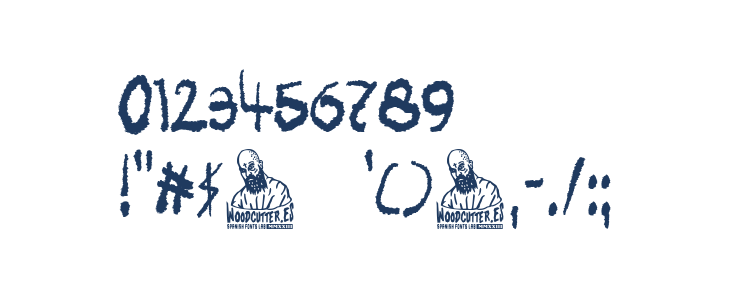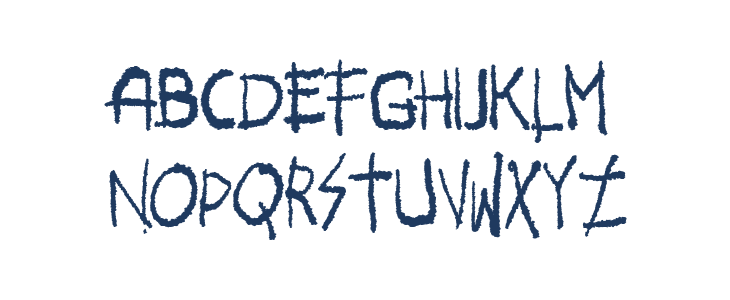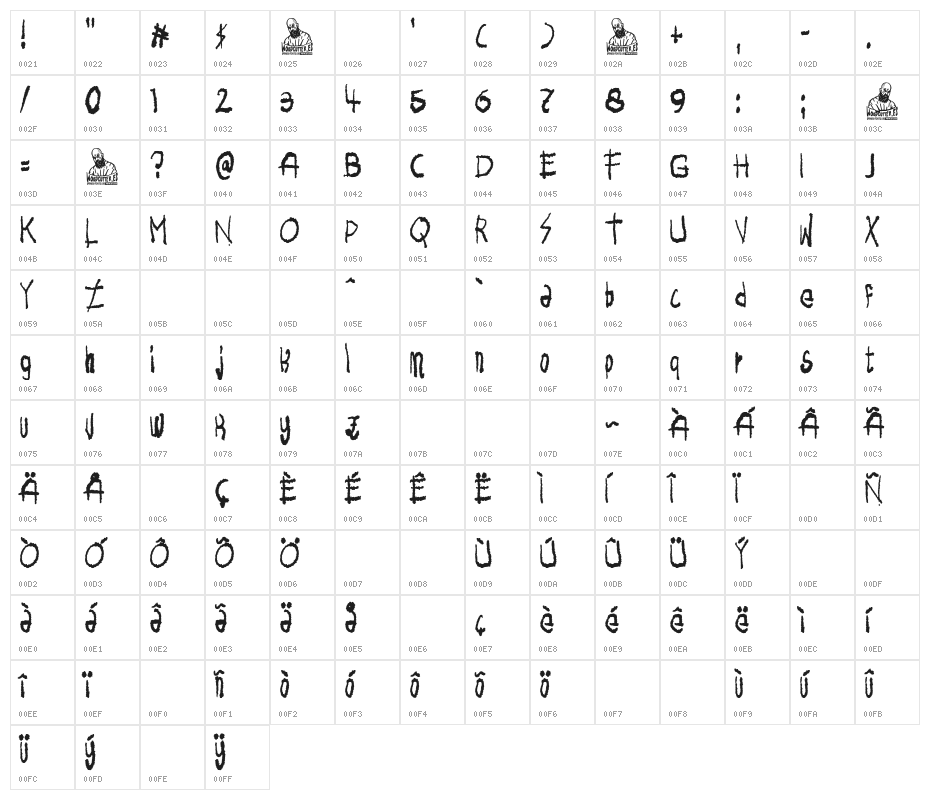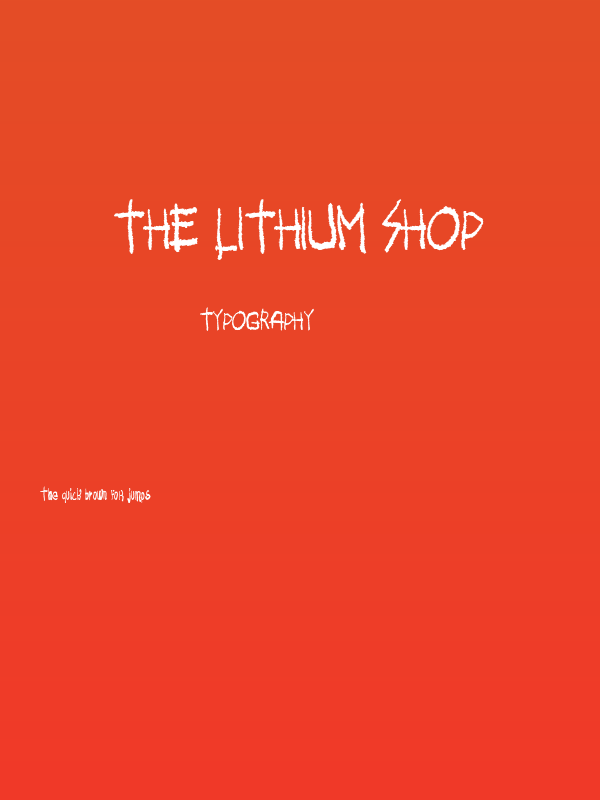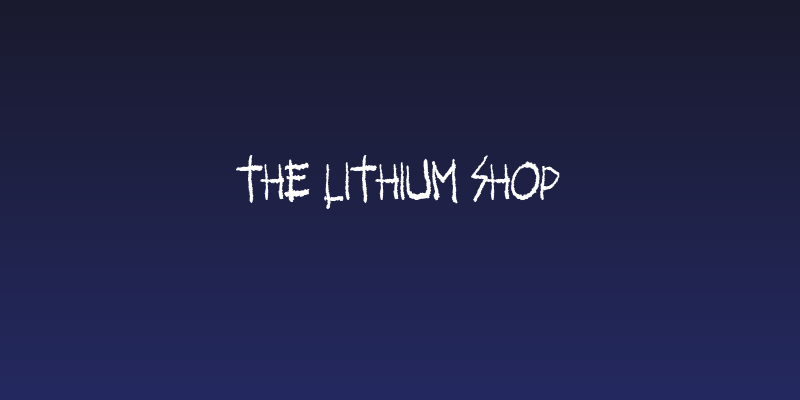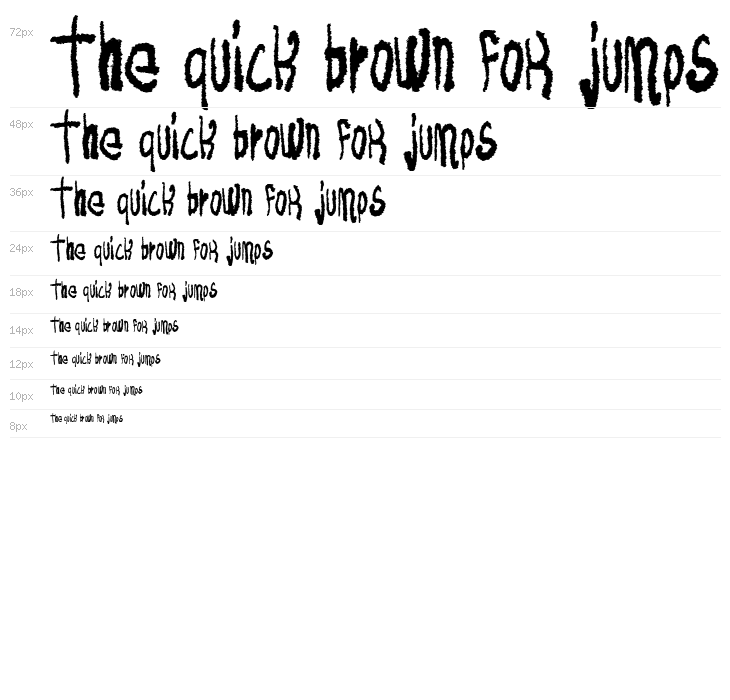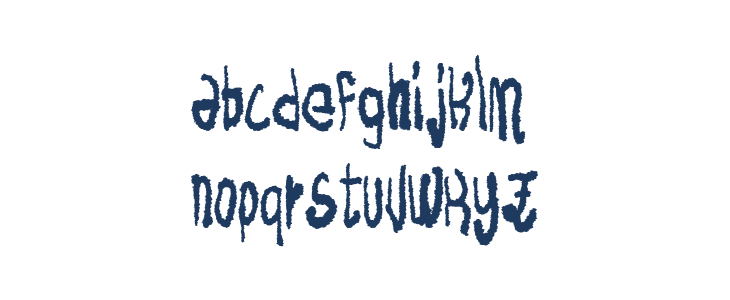
The Lithium Shop Font
The Lithium Shop Description
A rough, hand-drawn font with irregular, jagged strokes and uneven character heights, giving it a distressed and chaotic appearance. The letters are bold and expressive, with a sketch-like texture and varying widths.
| Overall Style | Decorative, Grunge, Distressed |
| Use Case | Headlines, Posters, Logos, Themed graphics |
| Proposed Projects | Horror posters, grunge album covers, edgy branding, Halloween invitations, alternative zines. |